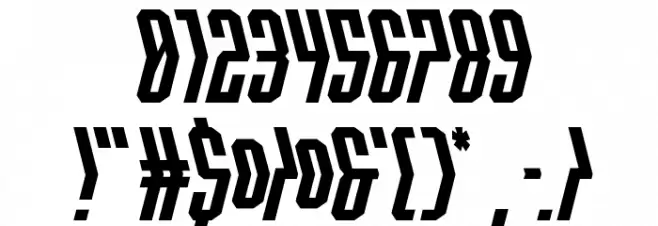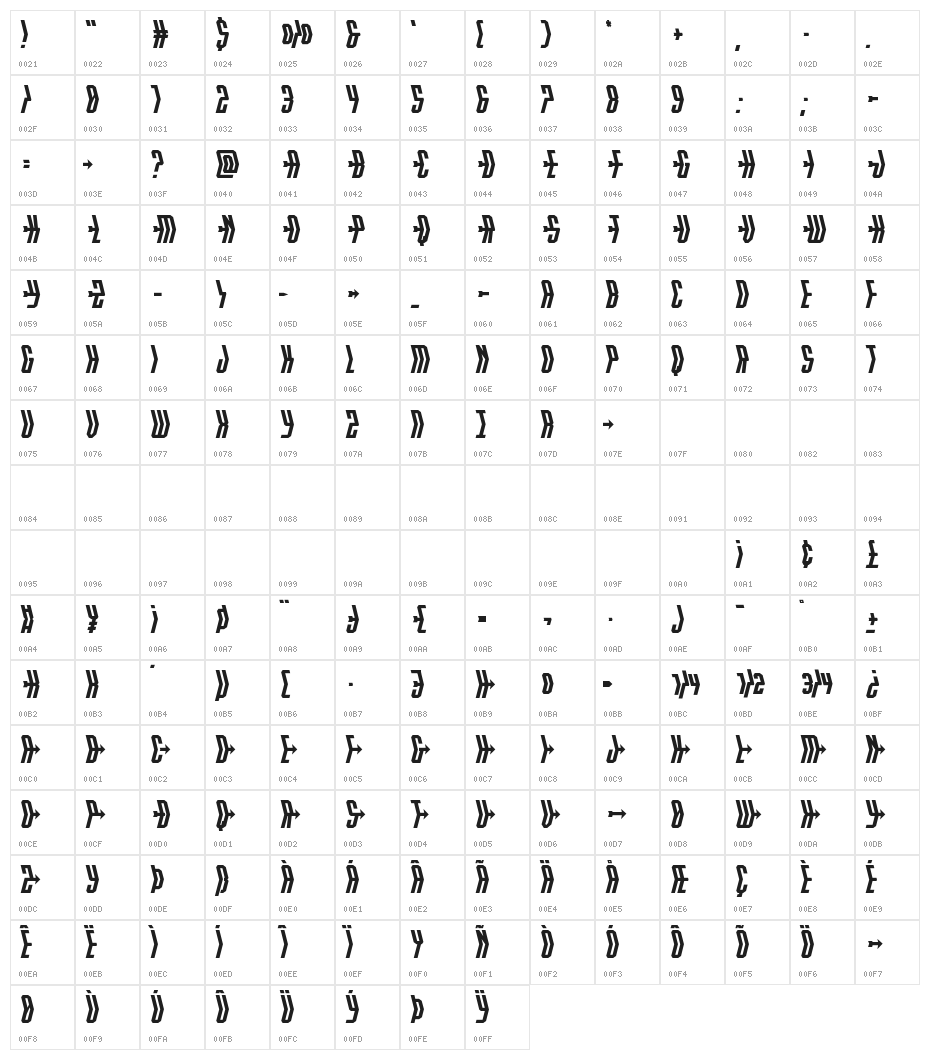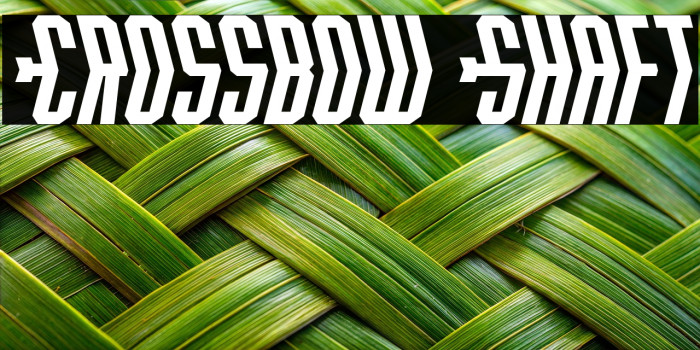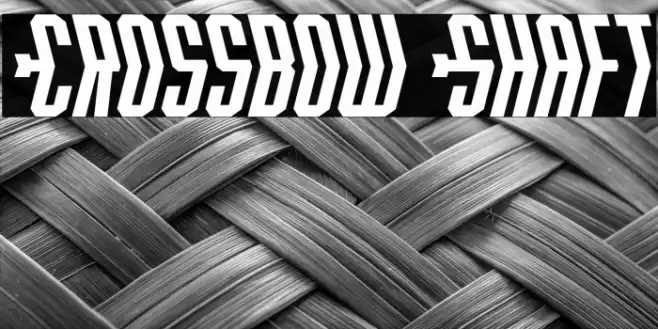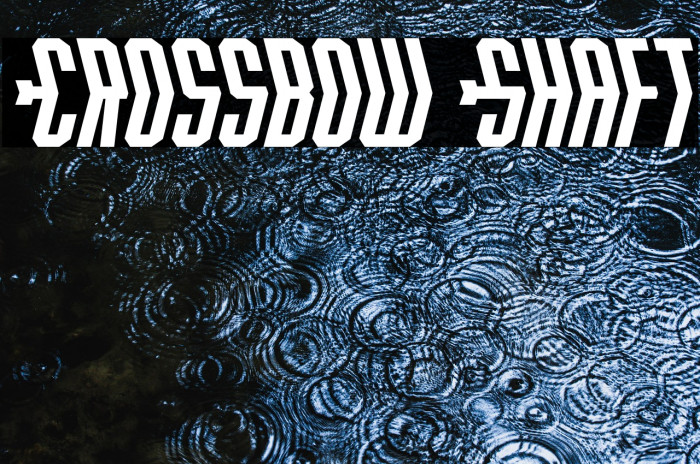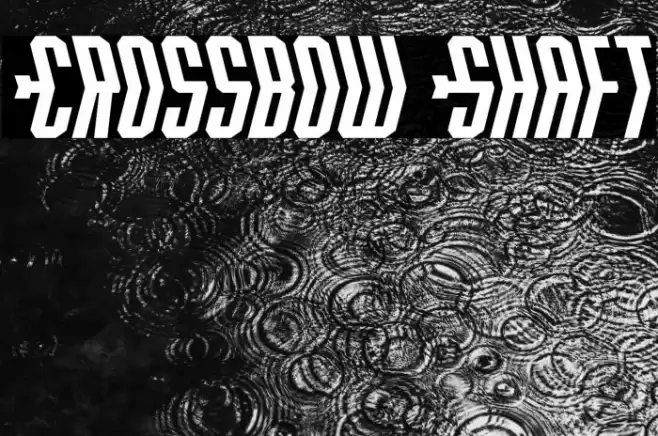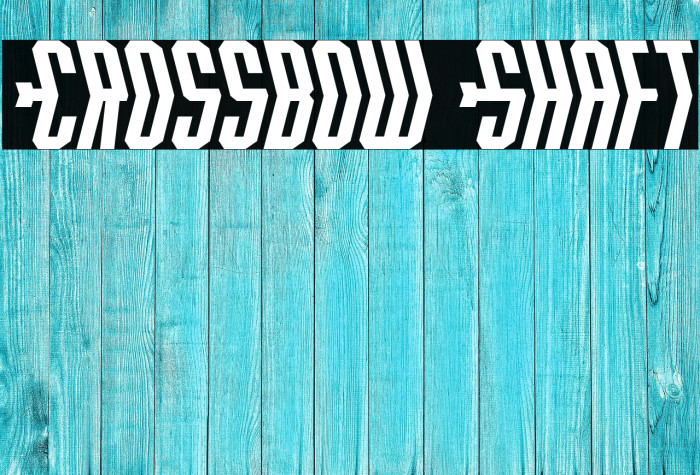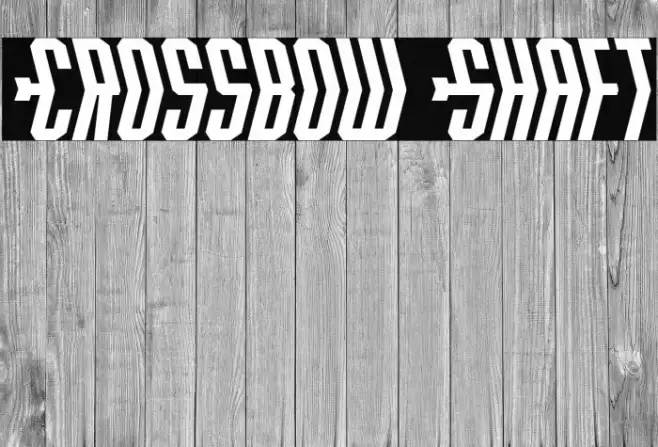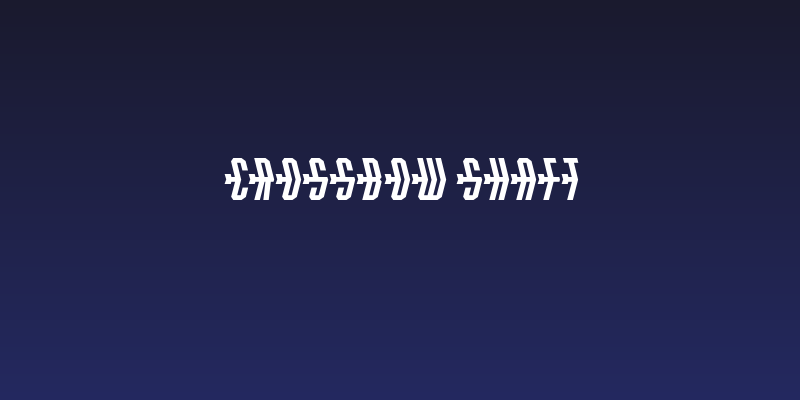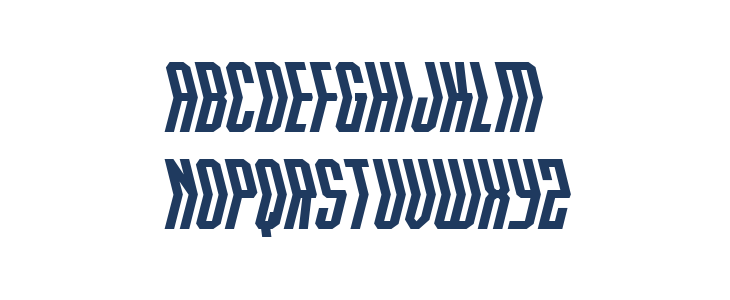
Crossbow Shaft Font
Crossbow Shaft Description
This font features a bold and dynamic design with a distinct geometric style. The characters are angular and sharp, creating a sense of motion and energy. The uppercase letters are particularly striking, with a futuristic and aggressive appearance. The numbers and special characters maintain the same boldness and angularity, ensuring consistency across all elements. The font's unique style makes it stand out, ideal for projects that require a strong visual impact.